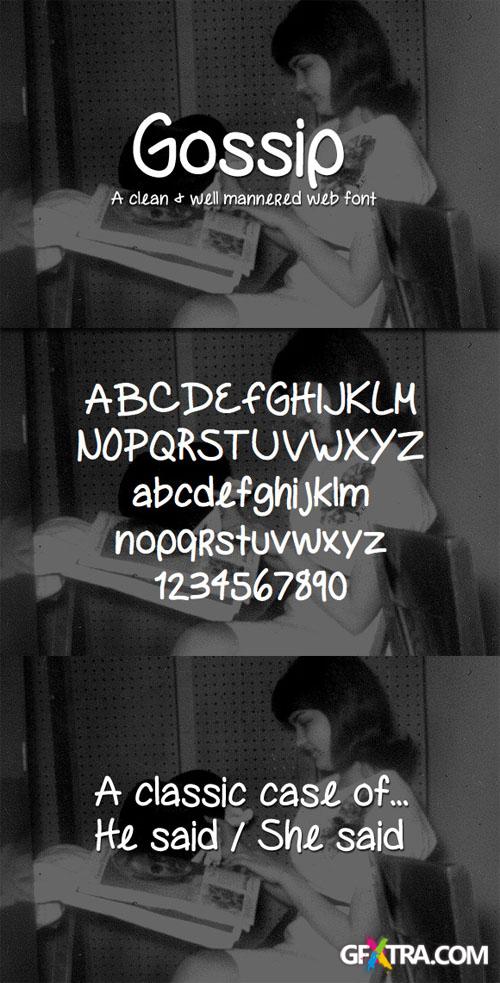
WeGraphics - Gossip A Clean Handwritten Web Font
Gossip is a clean handwritten web font. It features 198 glyphs and is easy to read at smaller sizes. Download and use Gossip in your next web project.